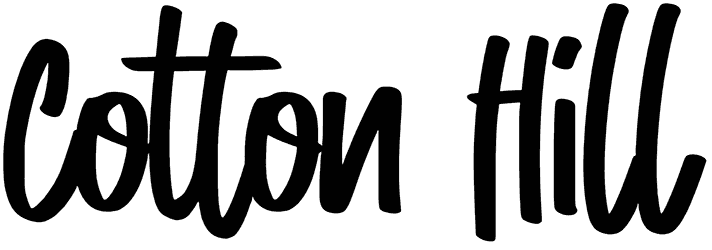
Cotton Hill Font
Everything your design needs to reflect your friendly and casual vibe is a unique script font to adorn your text. This handwritten font with its modern and playful characters can add a charming mood to your layout, like a dreamy bullet journal. The Cotton Hill font doesn’t support all of the numbers, but still, it will be a nice item for your creative projects.